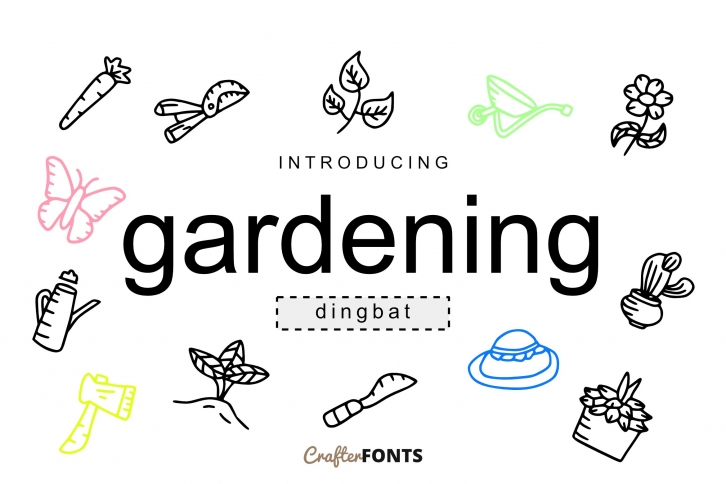
Gardening Doodle Dingbat is a beautiful font that was designed by OfficeWorld. It's a great choice for designers and creatives who need such a font. It was released on January 3, 2022 and the file size is 6.8 MB. Gardening Doodle Dingbat may give a more youthful, expressive and casual look to your project. It is a very beautiful, refined, elegant, and high-quality font.